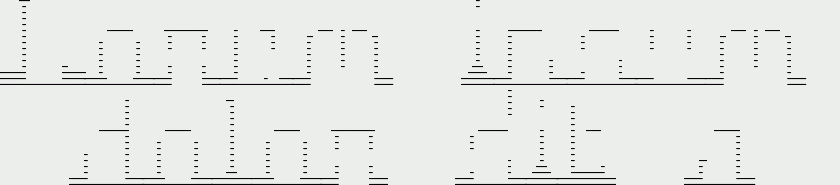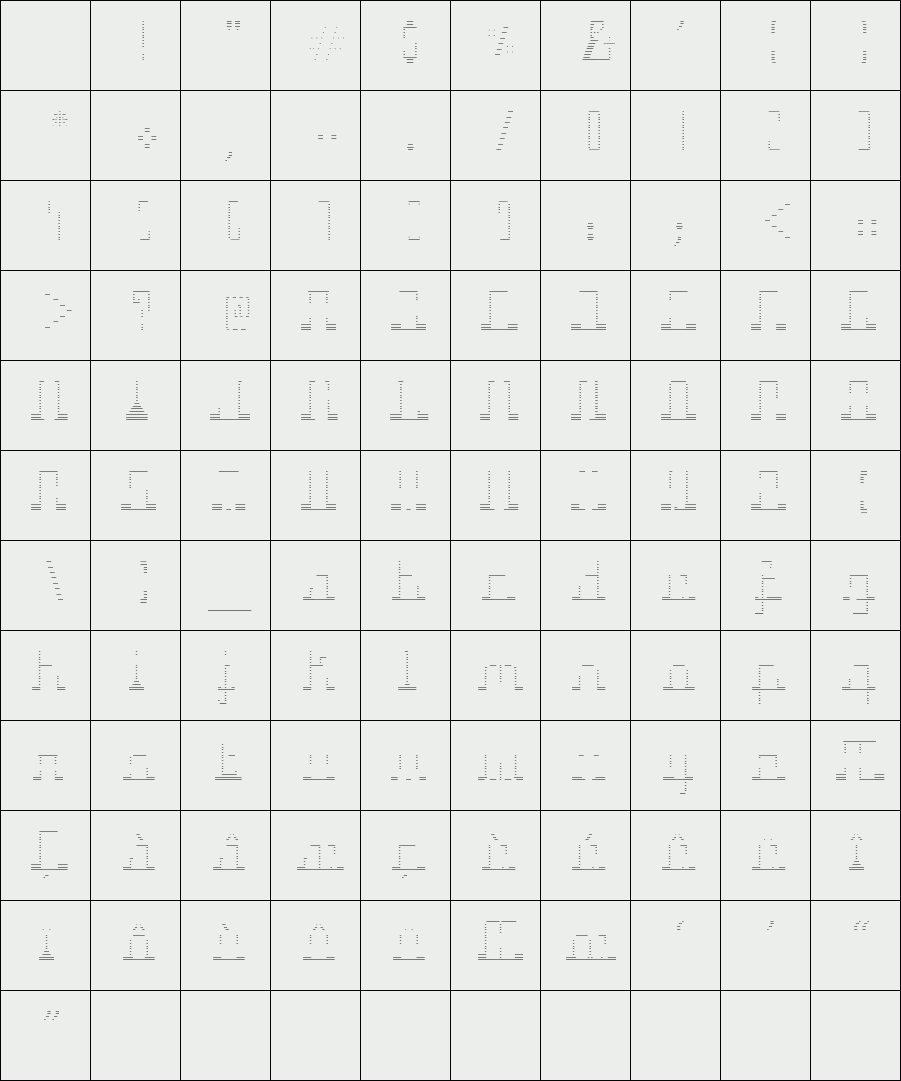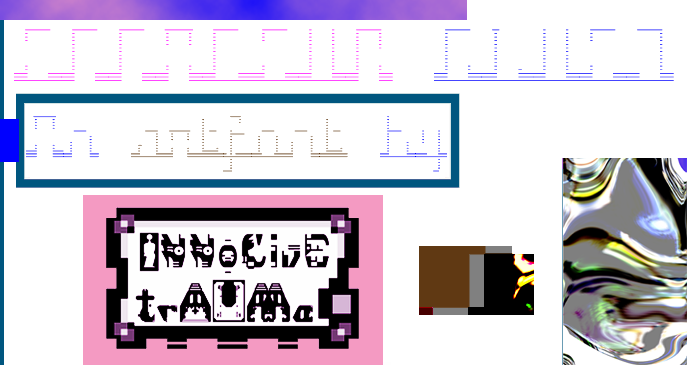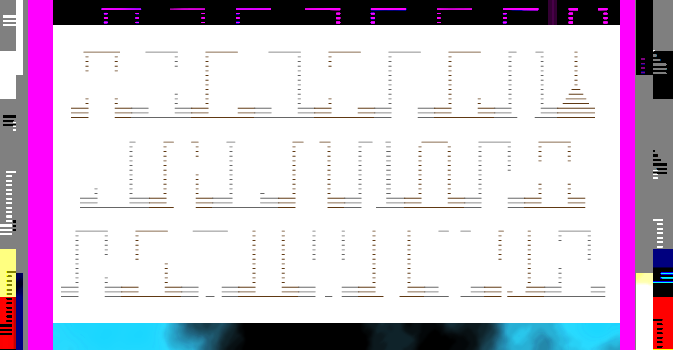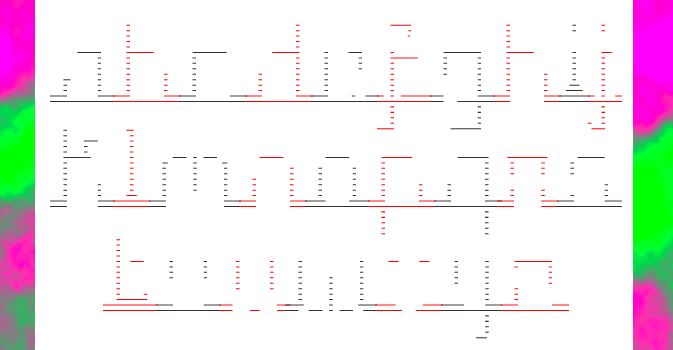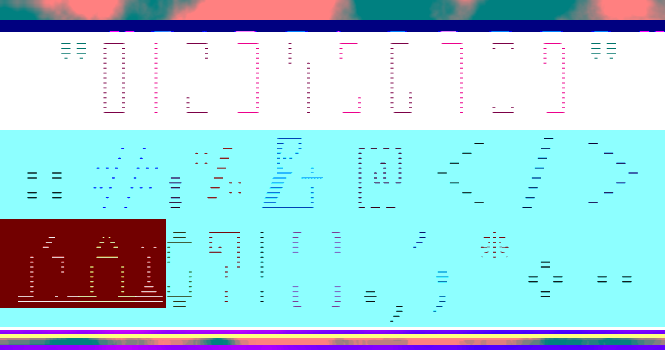
trAUMa 56 / Effaceur Glued
"Effaceur Glued", like all the "trAUMa" series, works at the frontier between Art & Type Design, Figuration & Abstraction, each font is a comprehensive world in which every glyph is a "living" entity. But put together they can produce your messages in the most accurate way.